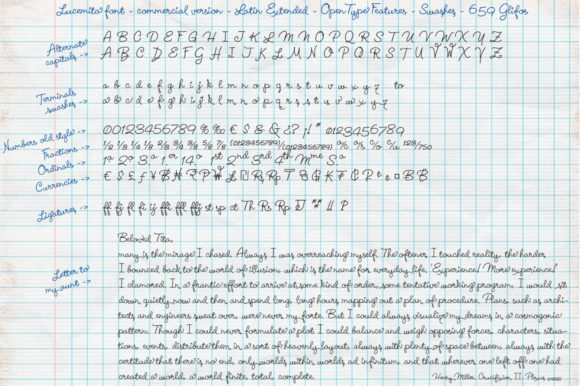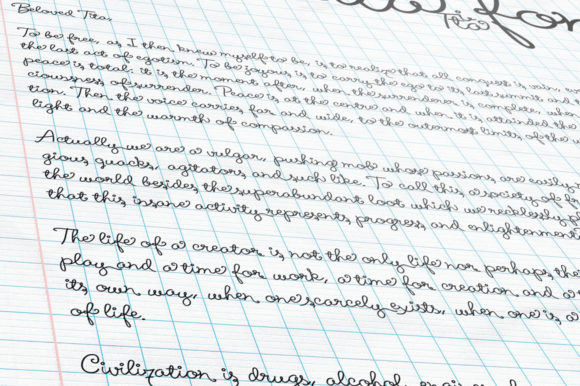
Introduction to Lucemita Script Font
Have you ever been stuck in front of your design software, trying to come up with the perfect font to make your project pop? You’ve tried every possible combination, but nothing seems to give it that extra oomph. Well, we’ve got the solution for you – introduce yourself to the charming Lucemita Script Font!
This delightful handwritten typeface was carefully crafted by hand with a fine marker, then digitized to bring it to life on your computer screen. Its light-hearted, playful feel makes it the perfect addition to any creative project, from designing eye-catching headlines and posters to crafting beautiful cards and publications.
Key Features of Lucemita Script Font
- High-quality, elegant script font perfect for creative projects and design resources.
- Unique, handwritten feel with subtle flair and movement, making it perfect for adding a touch of personality to any design project.
Honest Review: Lucemita Script Font
As a designer, I’m always on the lookout for high-quality design resources to elevate my creative projects. Recently, I had the chance to try out the Lucemita Script Font, and I must say it’s a great addition to any designer’s toolkit.
What works well: ✨ The Lucemita Script Font has a beautiful, elegant feel to it, making it perfect for wedding invitations, greeting cards, and other special occasion designs. The font is available for free download, which is always a bonus. I also appreciate that the font comes with a transparent background, making it easy to layer with other design elements.
What doesn’t: ⚠️ One potential limitation is that the font may not be suitable for body text, as it can be a bit difficult to read in certain situations. Additionally, the font may require some tweaking to get the spacing and alignment just right.
Overall, I’m impressed with the Lucemita Script Font. It’s a great choice for designers looking to add a touch of elegance to their projects. With a little practice and patience, I think this font has the potential to become a go-to choice for many designers.
Lucemita Script Font is perfect for use in various creative projects, including branding, advertising, and marketing materials. It’s also ideal for use in presentations, reports, and other professional documents that require a sophisticated look.